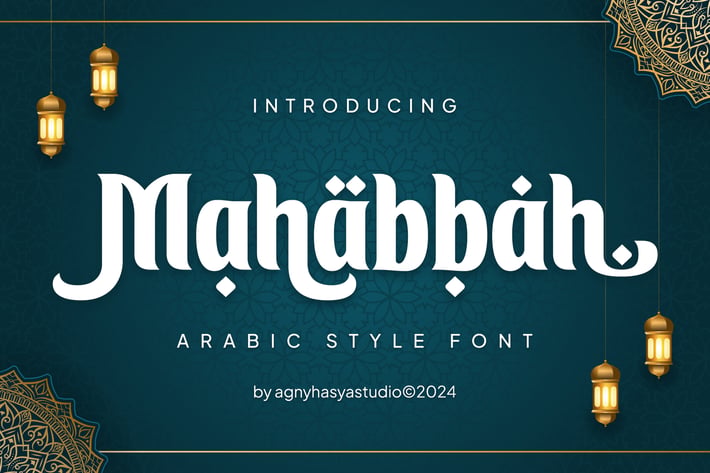
Mahabbah - Arabic Style Font
Mahabbah Is a Stunning Arabic-Style Display Typeface That Is Ideal for Ramadan Events and Other Islamic Event Design Projects.
This Typeface Comes With Unique Alternates and Ligatures, Allowing You to Experiment With Character Styles, Resulting in Visually Interesting and Cool Typography.